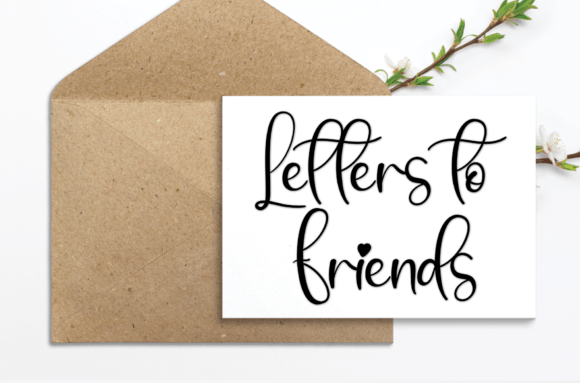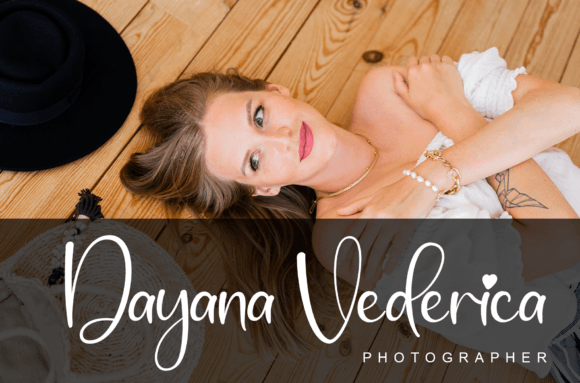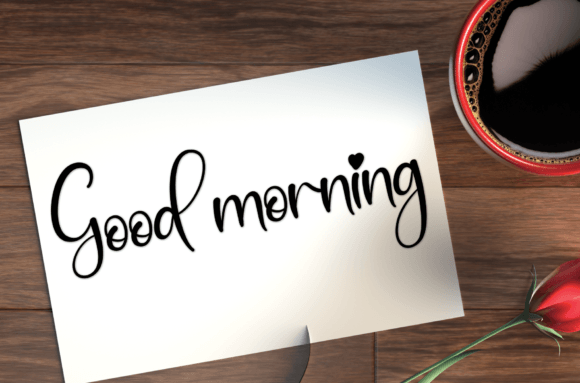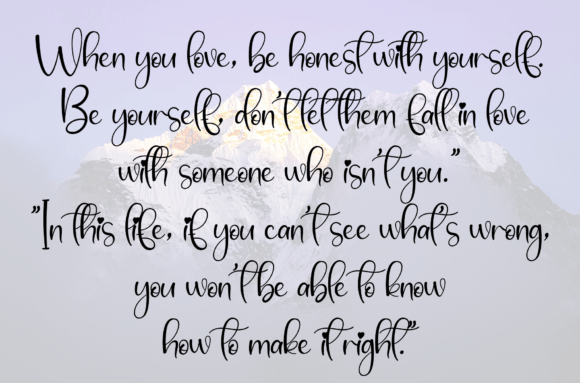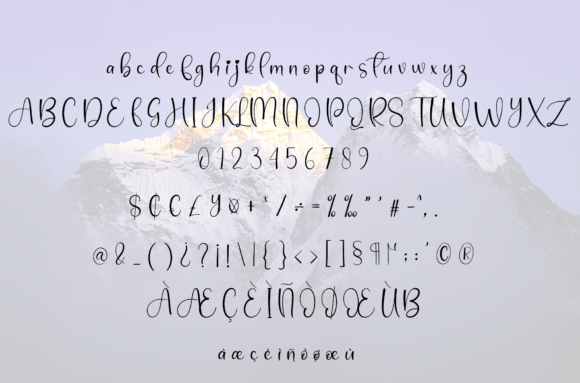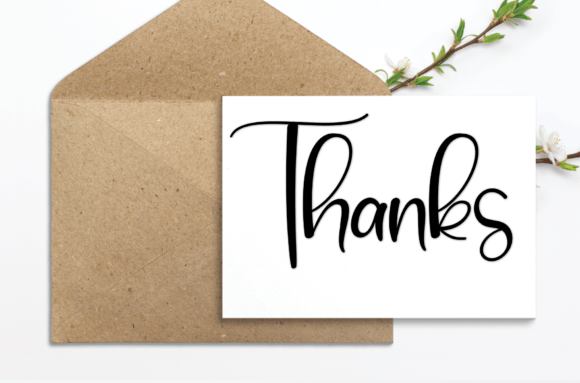
Discover the Elegance of Black Bold Font: A Sweet and Versatile Handwritten Font
Are you a designer or crafter looking for a font that can add a touch of romance and elegance to your designs? Look no further than Black Bold Font! This sweet and versatile handwritten font is perfect for creating stunning wedding invitations, cards, and other designs that require a romantic flair.
What is Black Bold Font?
Black Bold Font is a beautifully crafted handwritten font that exudes style and sophistication. Its elegant strokes and curves make it an ideal choice for designers who want to create romantic and eye-catching designs. Whether you’re working on a wedding invitation, a greeting card, or any other project that requires a personal touch, Black Bold Font is the perfect choice.
Key Features of Black Bold Font
- Handwritten style: Black Bold Font has a beautiful handwritten style that gives it a personal and unique touch.
- Elegant and stylish: The font’s elegant strokes and curves make it perfect for creating sophisticated designs.
- Versatile: Black Bold Font can be used for a wide range of design projects, from wedding invitations to greeting cards and more.
- Easy to read: Despite its bold and elegant style, Black Bold Font is easy to read and understand.
Uses of Black Bold Font
Black Bold Font is a versatile font that can be used for a wide range of design projects. Here are some of the most popular uses of this beautiful font:
- Wedding invitations: Black Bold Font is perfect for creating stunning wedding invitations that set the tone for a romantic and elegant wedding.
- Greeting cards: The font’s elegant style makes it ideal for creating beautiful greeting cards for special occasions like birthdays, anniversaries, and more.
- Stationery: Black Bold Font can be used to create beautiful stationery, including letterheads, notebooks, and journals.
- Signage: The font’s bold and elegant style makes it perfect for creating eye-catching signage for events, businesses, and more.
Tips for Using Black Bold Font
Here are some tips for using Black Bold Font in your designs:
- Pair it with a simple font: Black Bold Font is a bold and elegant font, so it’s best to pair it with a simple font to avoid overwhelming the design.
- Use it for headings: Black Bold Font is perfect for headings and titles, so use it to create eye-catching headings that grab attention.
- Experiment with colors: Black Bold Font looks great in a variety of colors, so experiment with different colors to find the one that works best for your design.
Black Bold Font is a sweet and versatile handwritten font that’s perfect for designers and crafters who want to add a touch of romance and elegance to their designs. Its elegant style, versatility, and ease of use make it an ideal choice for a wide range of design projects. Whether you’re working on a wedding invitation, a greeting card, or any other project that requires a personal touch, Black Bold Font is the perfect choice.